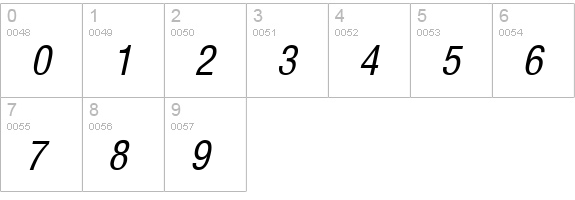
SwitzerlandCondensed Italic: Font Details
SwitzerlandCondensed Italic: is a distinctive, italic variant in the SwitzerlandCondensed typeface family \xE2\x80\x94 well suited to design and typography projects.
SwitzerlandCondensed Italic is a sleek and sophisticated font that exudes elegance and modernity. Its condensed design gives it a unique and stylish look, making it perfect for a wide range of design projects. The italicized style adds a touch of flair and sophistication to your text, making it stand out beautifully. This font is not only visually appealing but also highly versatile, making it suitable for various design purposes such as branding, advertising, packaging, and more. The clean and sharp lines of SwitzerlandCondensed Italic make it a great choice for creating a professional and polished look in your designs. And the best part? SwitzerlandCondensed Italic is available for free download at FontsMarket.com. This means you can easily access this stylish font and use it in your projects without any cost. Don't miss out on this fantastic opportunity to enhance your designs with the elegant SwitzerlandCondensed Italic font. Download it now and elevate your design game to the next level!